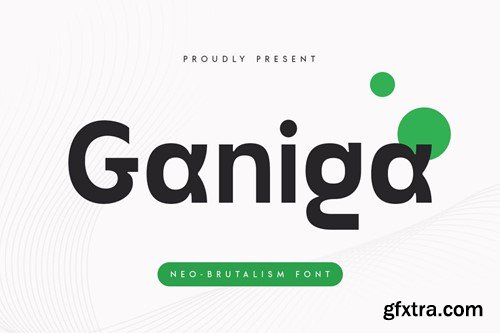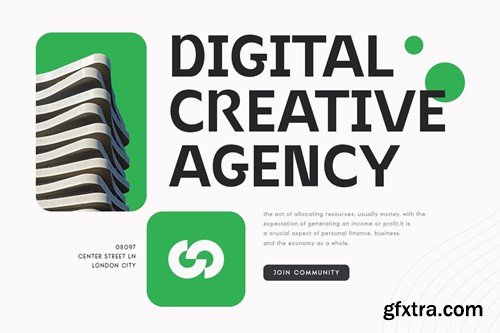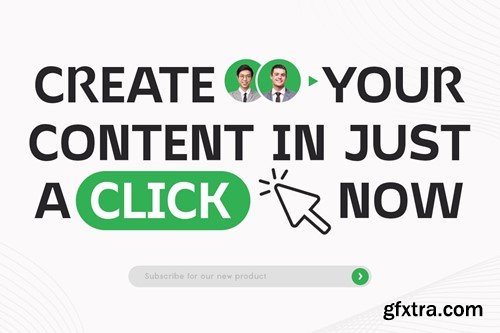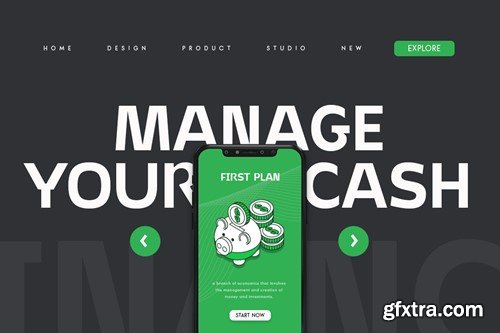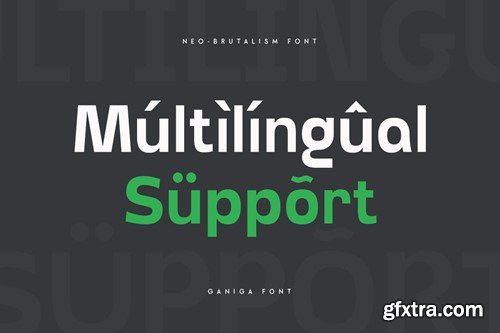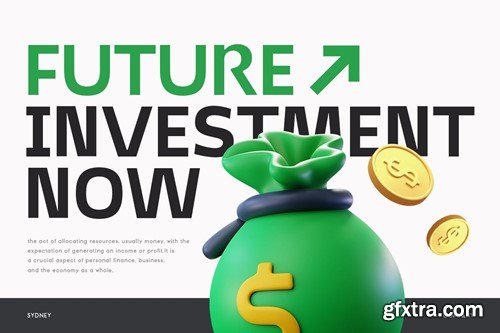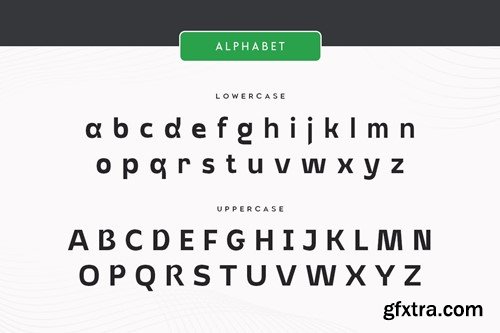
甘伽 - 新 Brutalist 字体 SB5JUFK
Ganiga, Neo Brutalism Font is a modern font with minimalist and Corporate like a Startup style, font that you can combine to get any variations and unique shapes easily just in seconds with choose characters of them. It is a sans serif font with minimalist style that perfect for Social Media Headline, Thumbnail title, branding projects, logo, poster designs, social media posts, advertisements, product packaging, product designs, label, photography, watermark, invitation, stationery, and any projects, it makes with a high level of legibility. What's Included: Recommended using Adobe Illustrator or Adobe Photoshop. Wish you enjoy our font. :)